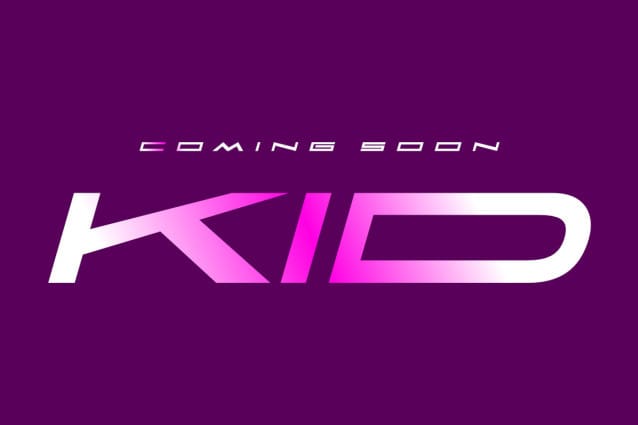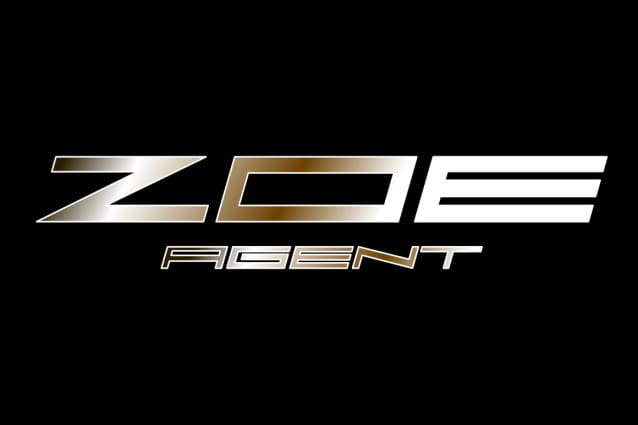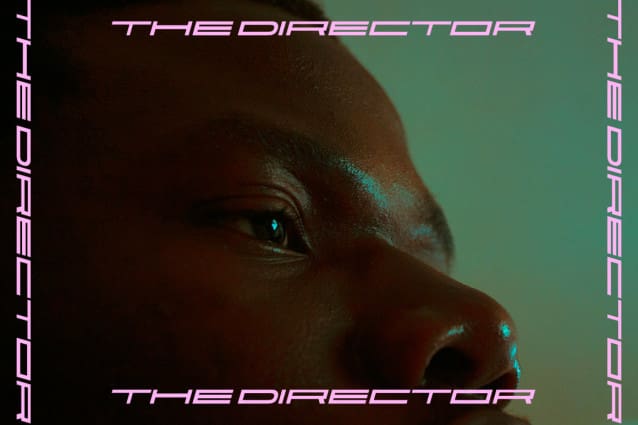
Faqro Extended Wide Italic Font
Faqro Extended Wide Italic Font is a futuristic font style with sophisticated, modern and minimalist allcaps characters. Its futuristic aesthetics bring a whole new dimension to your designs, making them stand out. Whether you’re working on a website, poster, logo, or any other project, this font adds that extra touch of innovation and sophistication.